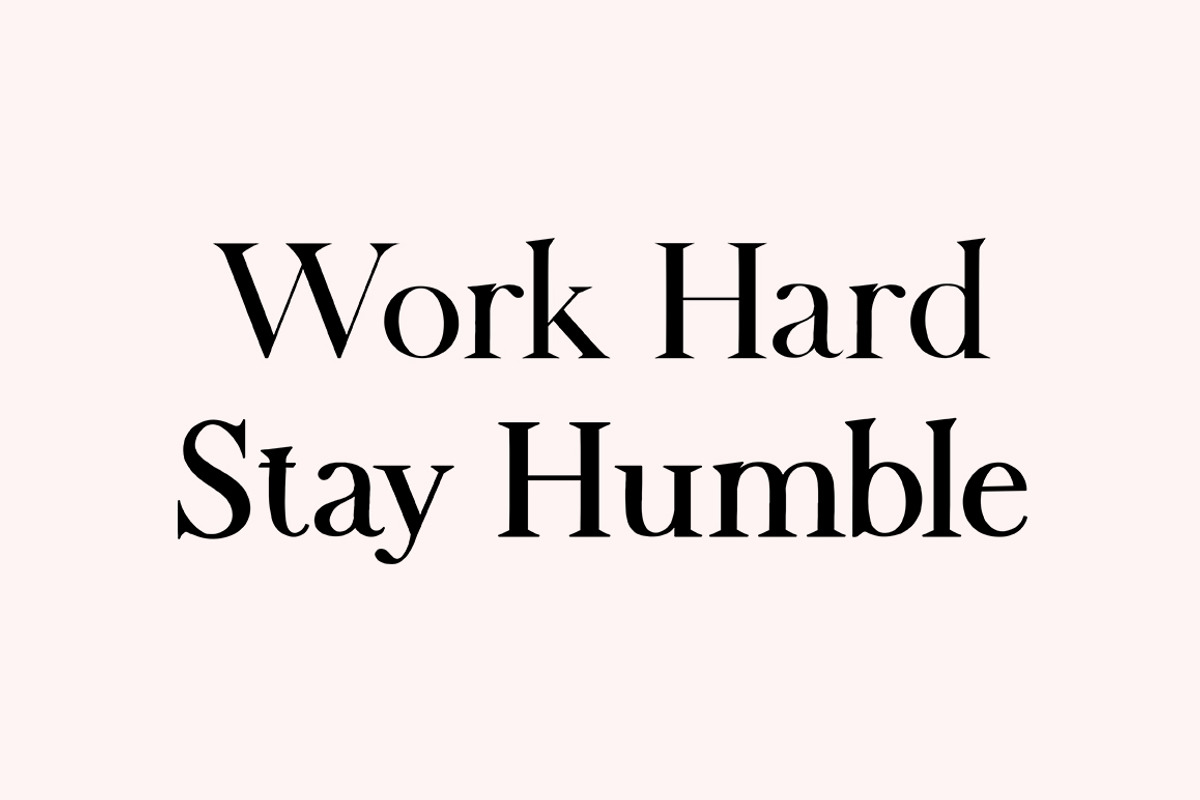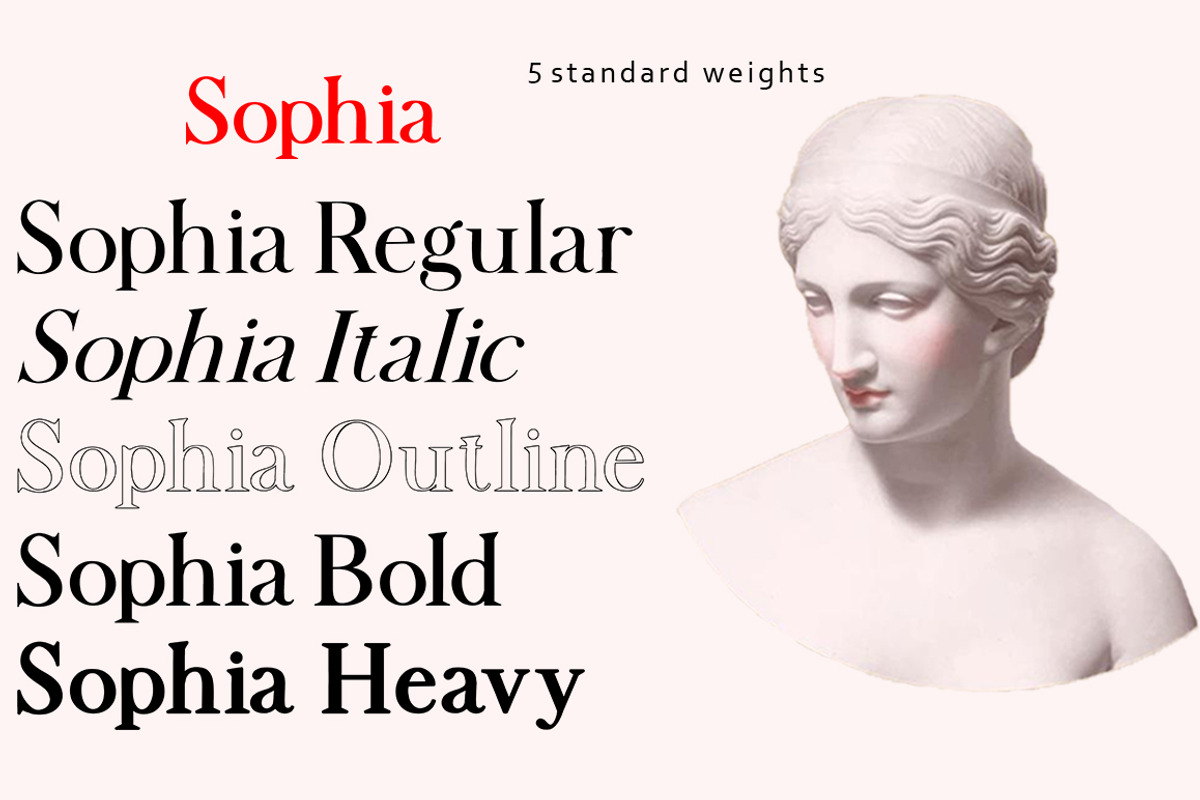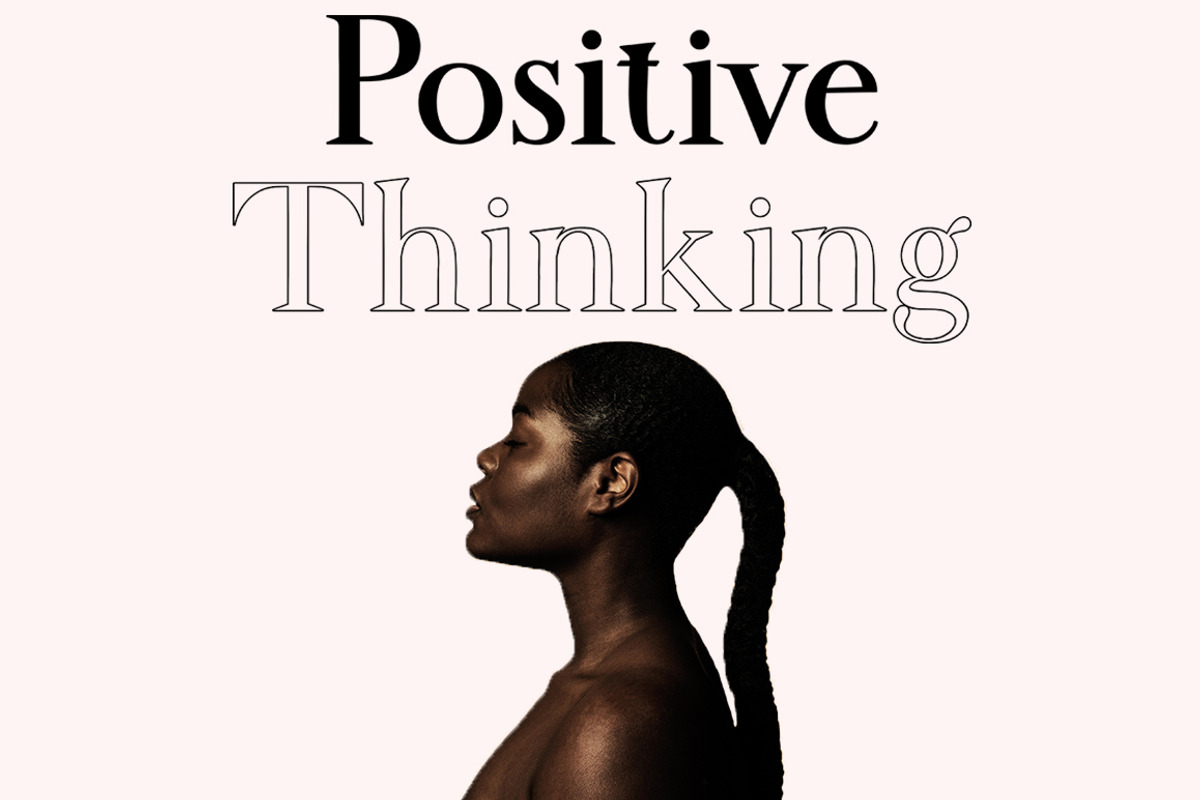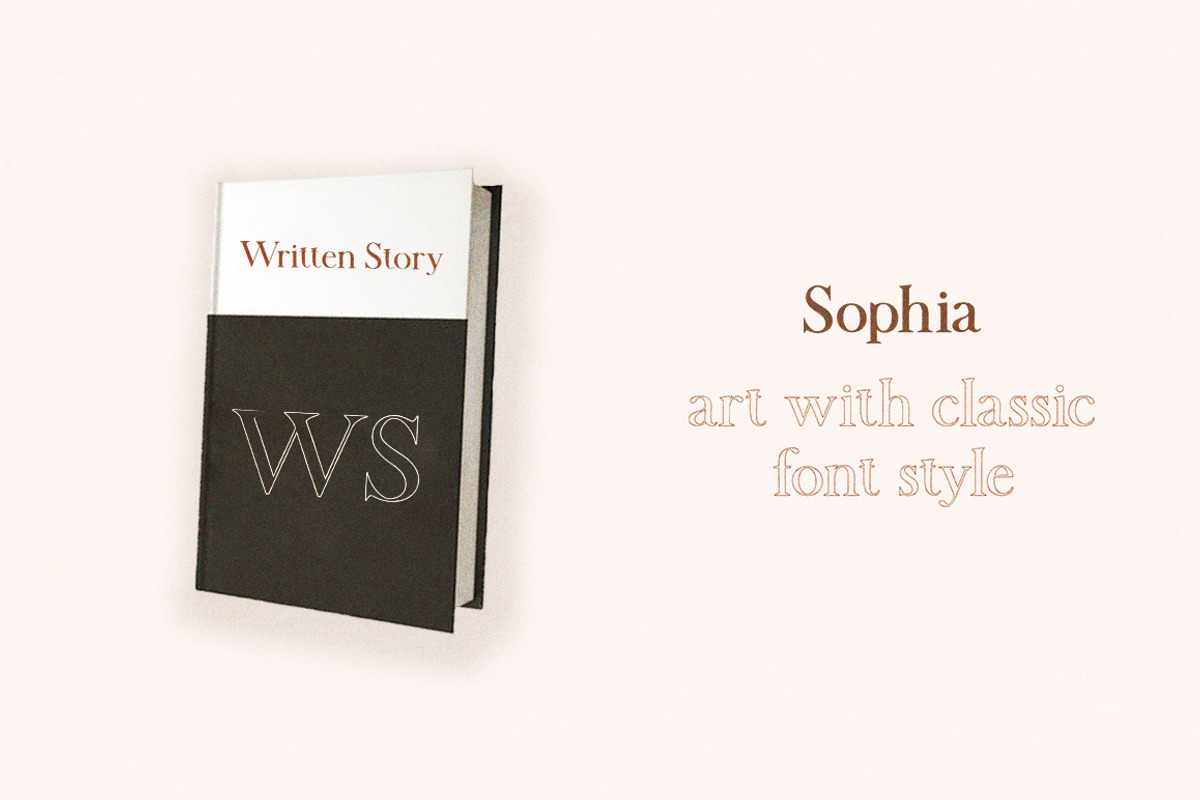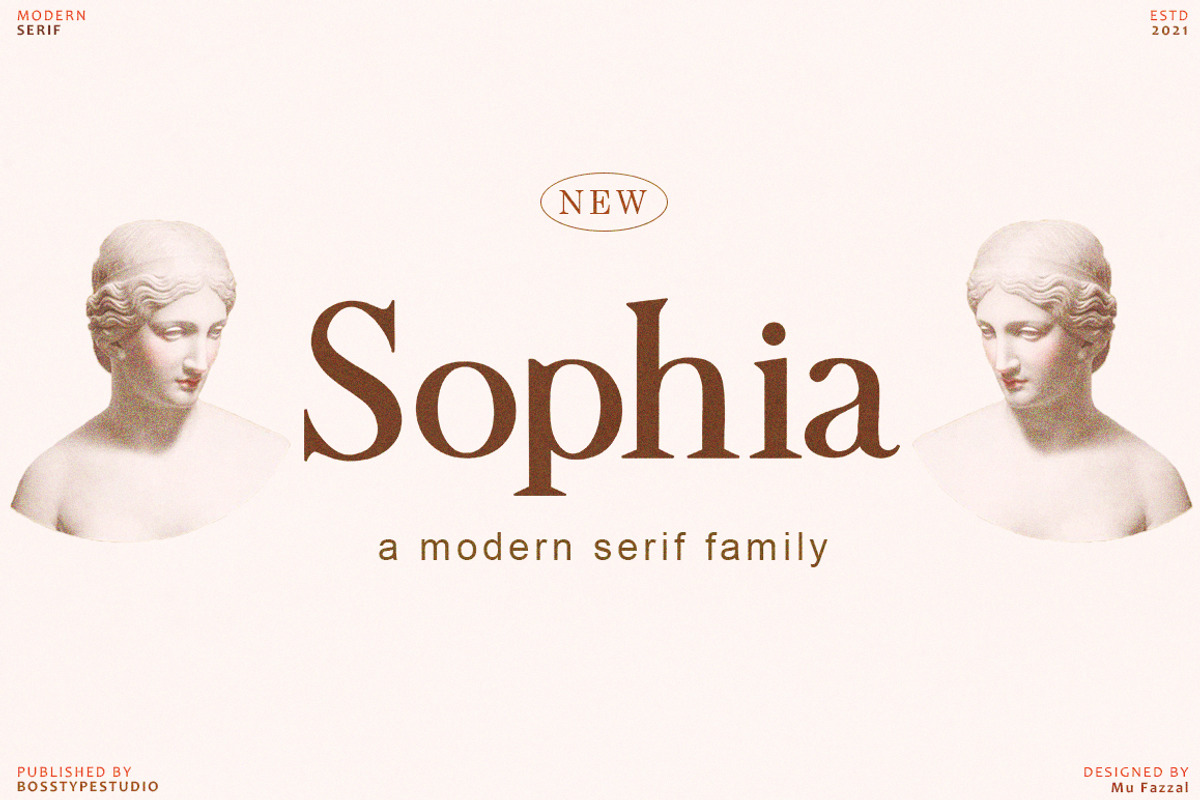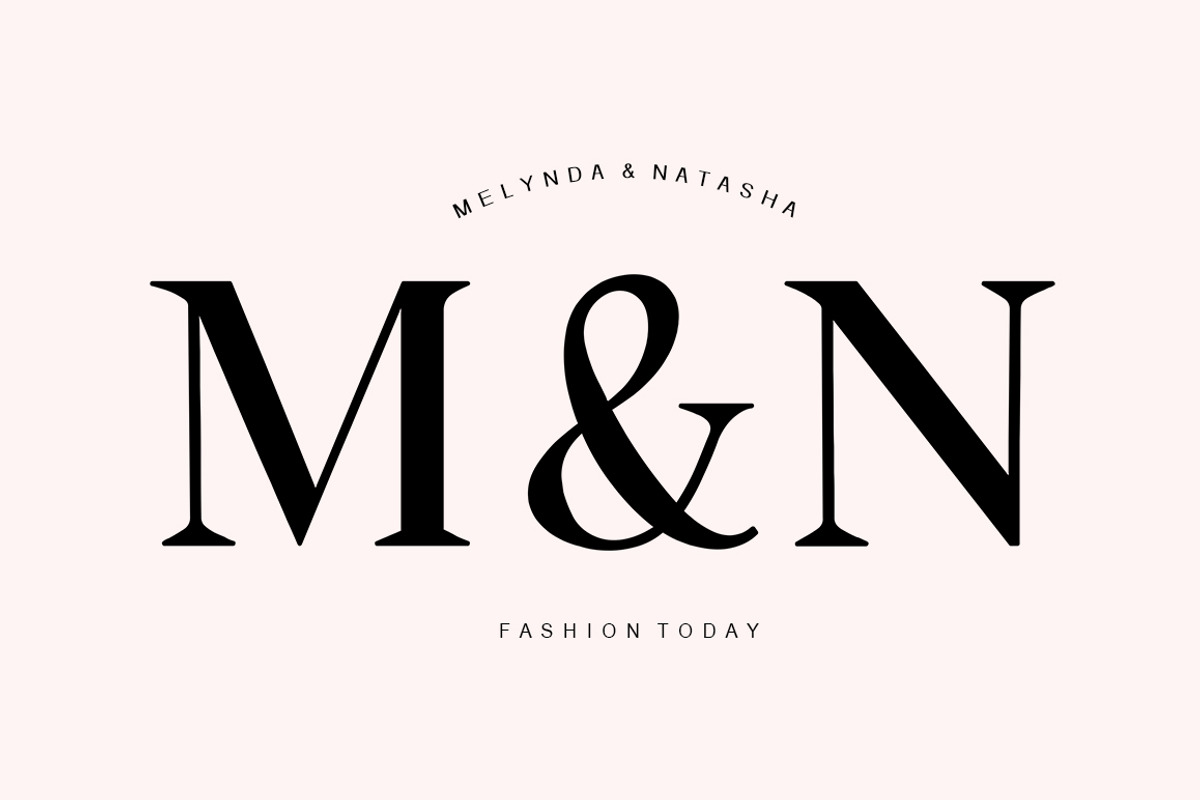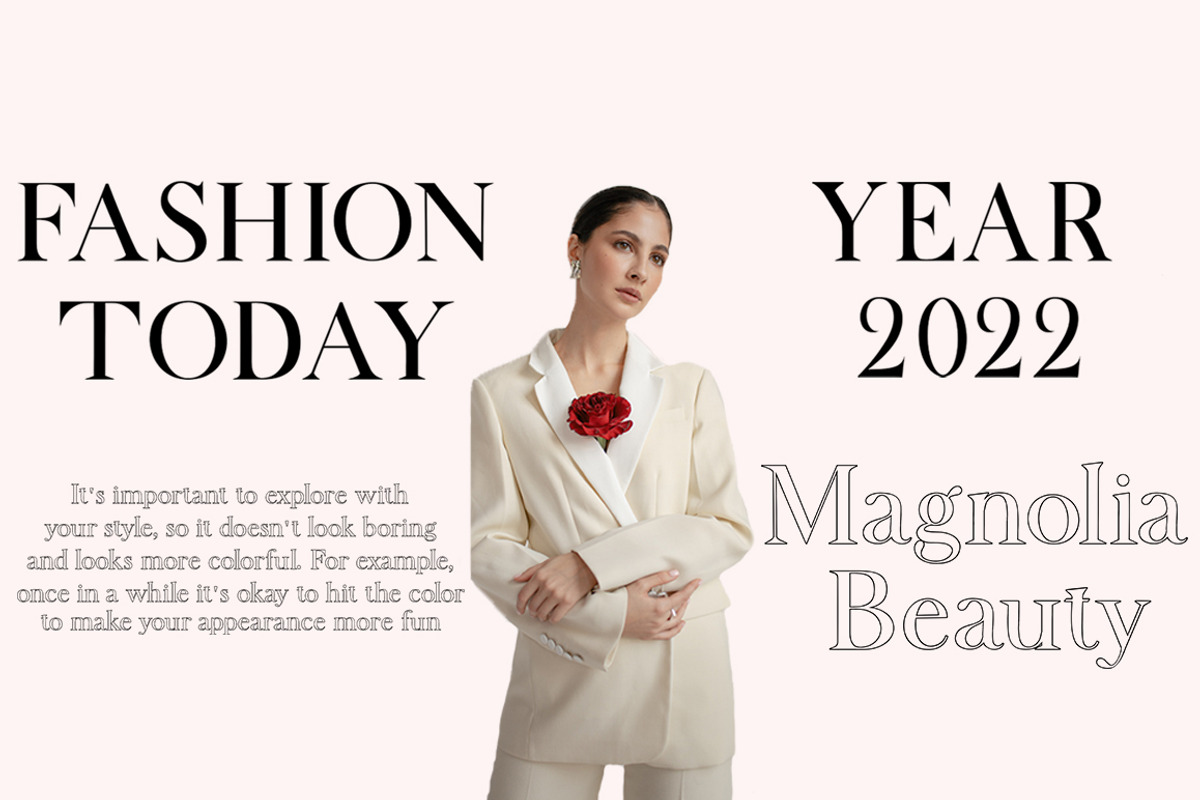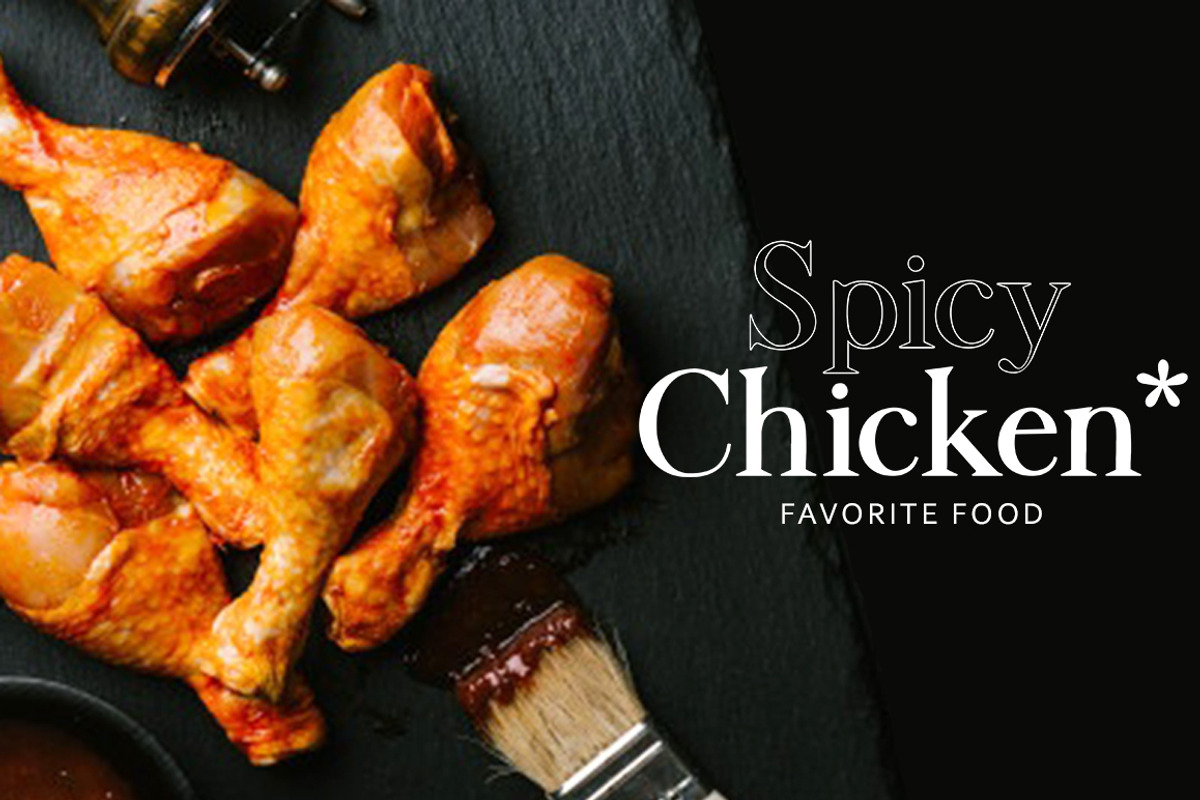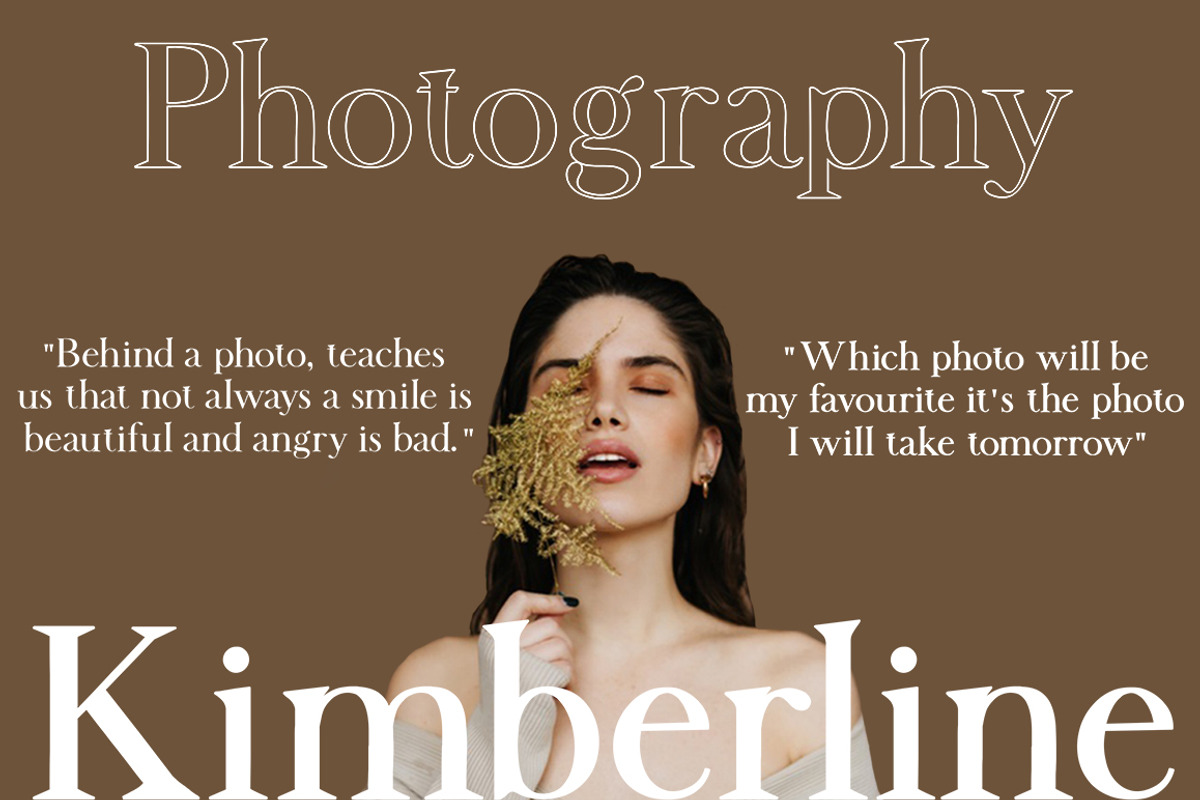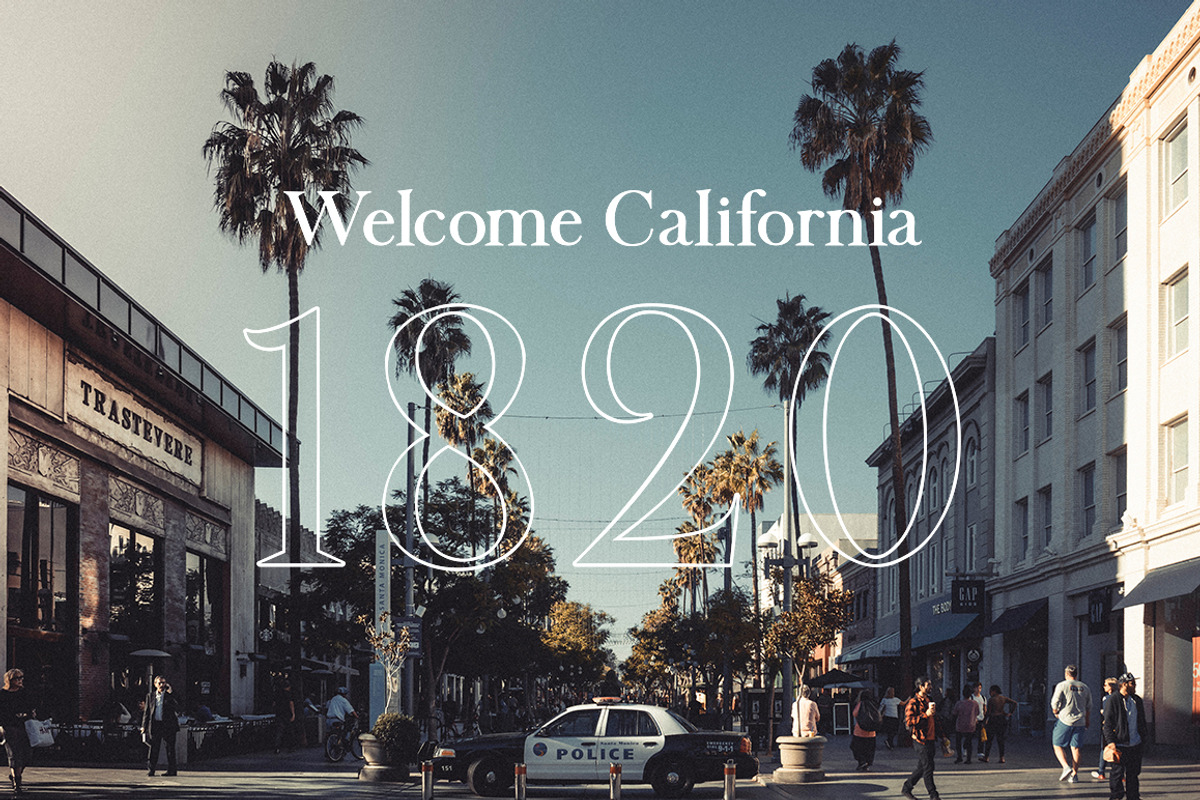
Sophia Serif | Family Font
Sophia is a display font that strikes the perfect balance between classic and modern, combining serif and sans serif styles in a unique way. Its timeless appeal makes Sophia a great choice for stylish and impactful designs. The font family includes 5 different weights, uppercase, lowercase, punctuation, and multilingual support.
Sophia Regular (uppercase & lowercase) Sophia Italic (uppercase & lowercase) Sophia Outline (uppercase & lowercase) Sophia Bold (uppercase & lowercase Sophia Heavy (uppercase & lowercase) Numbers & punctuation Foreign language support